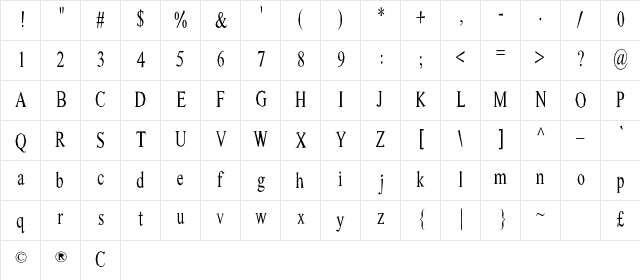
Smedley Regular
Design Context for Smedley Typeface
Smedley offers clean, dependable letterforms without strong stylistic allegiance, making it a practical choice for designers who need flexibility.